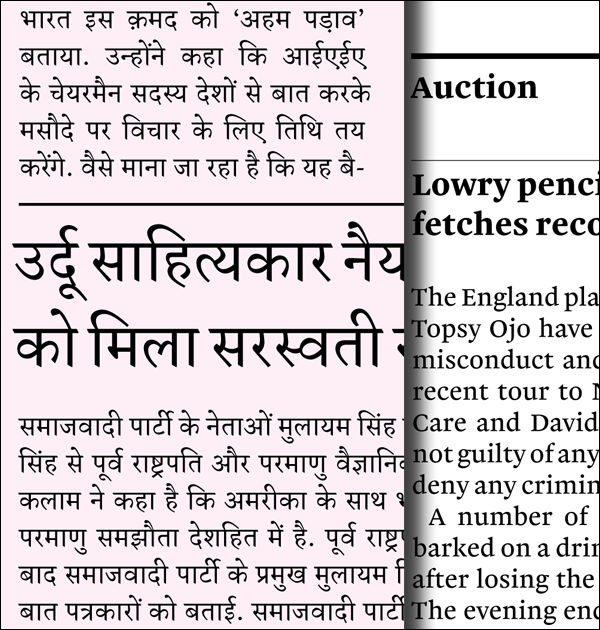
My typeface family Malabar received a silver award at ED2009, the European Design Awards 2009 competition. Malabar grew out of Martel, a multi-script design that I initially created in 2008 on the MA Typeface Design course at the University of Reading. The Latin component of the family is distributed by Linotype, and you can buy it here.
The design’s success was announced on Sunday, 17 May 2009, at the ED-Festival in Zürich. Malabar received the silver award in the original typeface category. This isn’t Malabar’s first distinction; its six Latin fonts received a Certificate of Typographic Excellence in Type Design at the Type Directors Club of New York TDC² competition in January 2009. Unlike my entry to the TDC², Malabar’s presentation for the ED-Awards judges included both its Latin and Devanagari character sets.
I am more interested in your Devanagari than anything else right now. How many weights you’re planning to have for the release? Could you tell us an estimate release date, please?
Oh, I suspect that I’ll do a regular, a bold, and a black… at least a regular and a bold. I really can’t say. I’m not working on it at the moment, so I can’t hammer down any sort of time frame right now.
Just came across your site while looking foe examples of Devanagari typography. I must say that your typeface is most appealing. Congratulations.